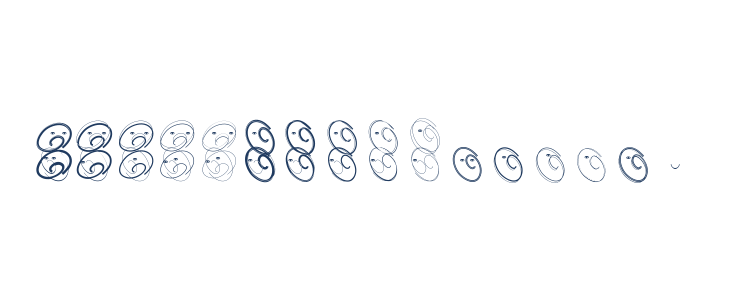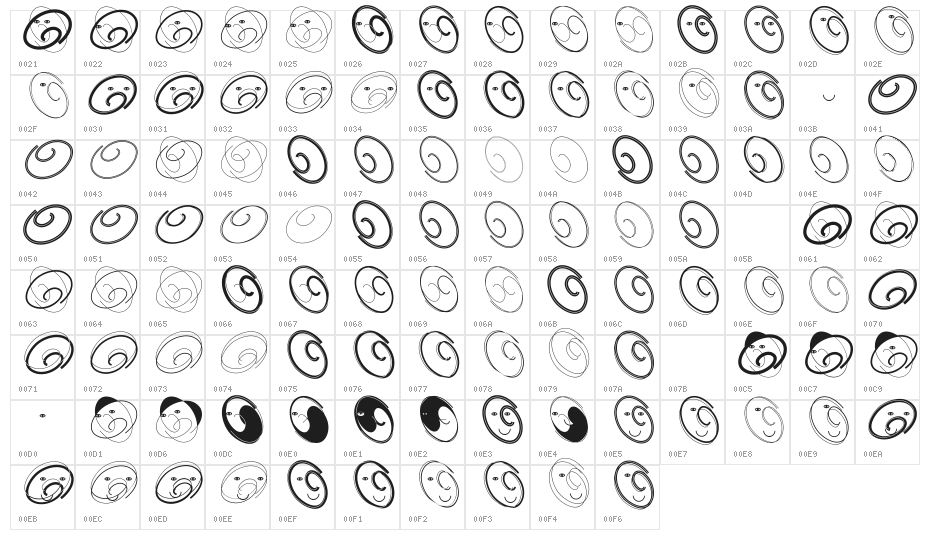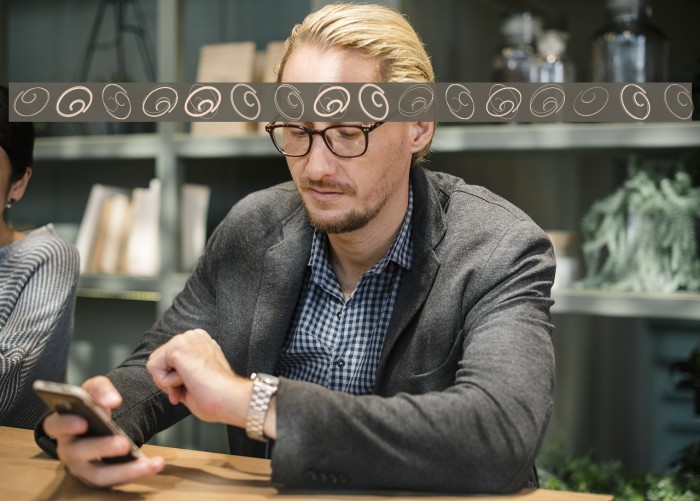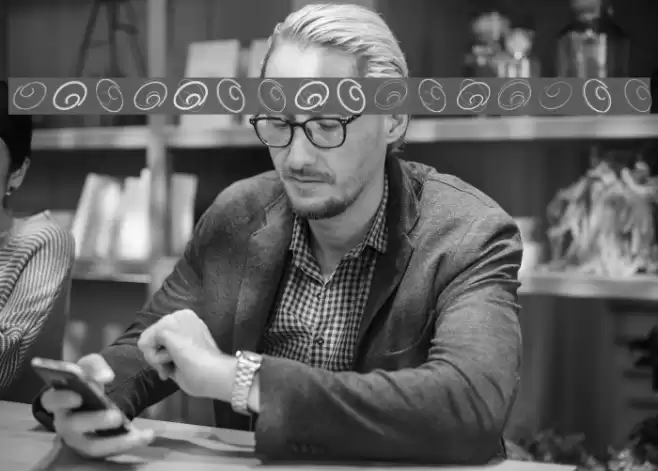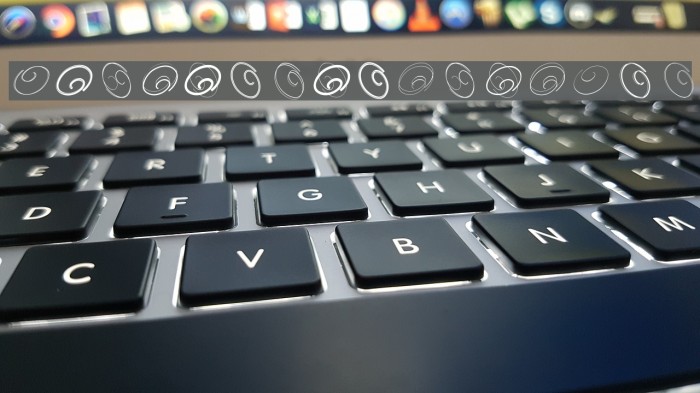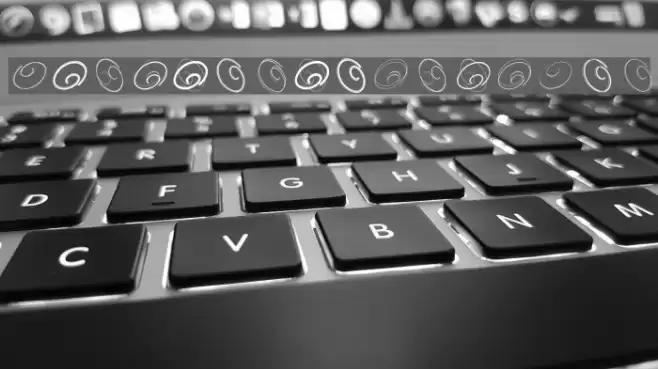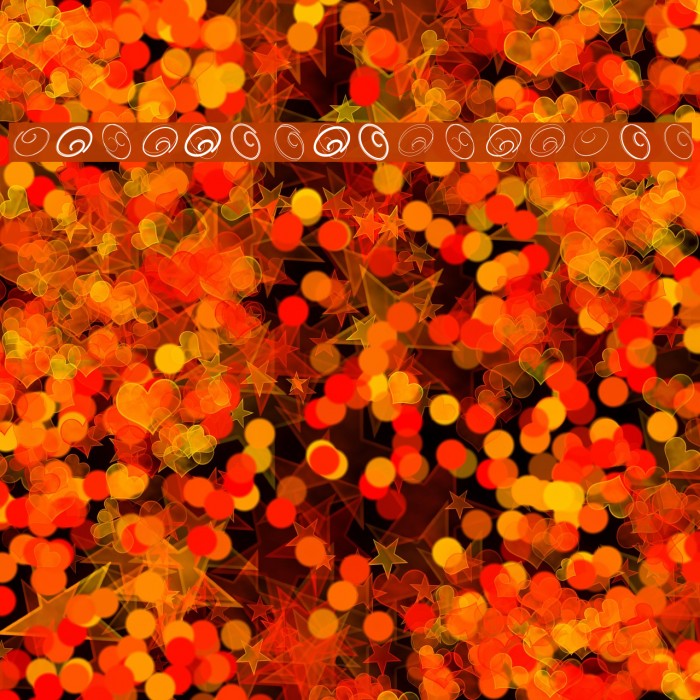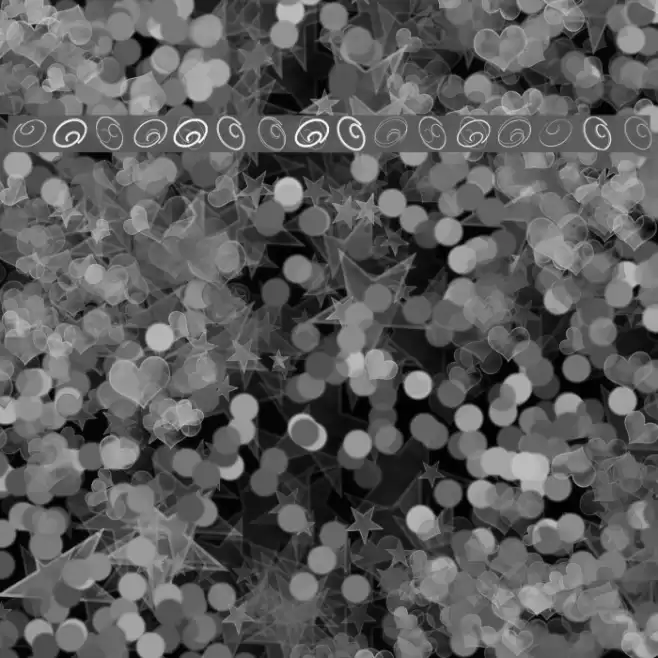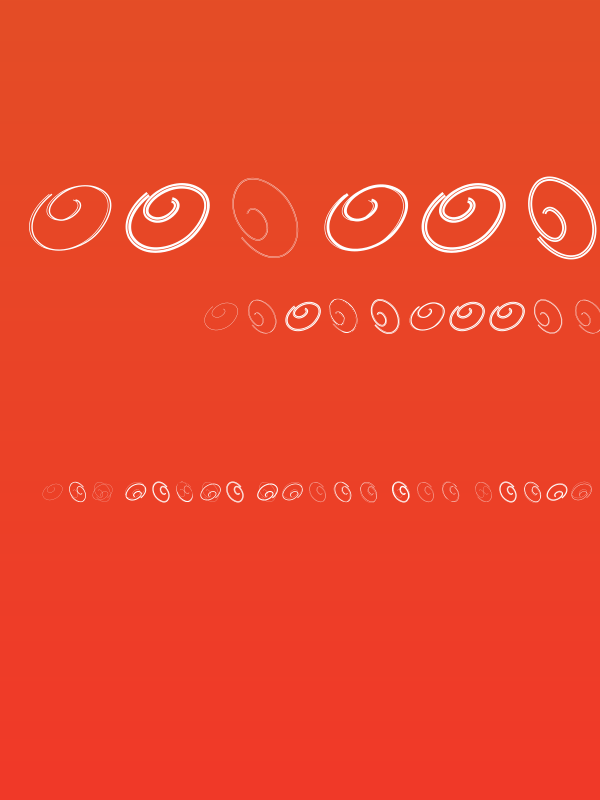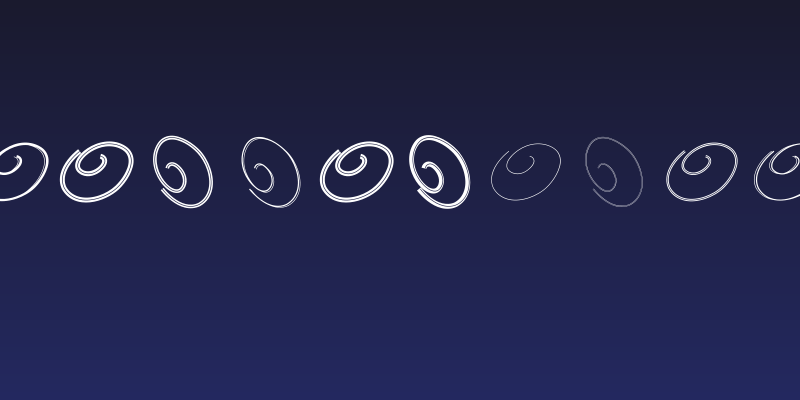
SpiralnauticsTwo Font
SpiralnauticsTwo Description
This is not a valid font. The image appears to contain abstract or decorative spiral designs rather than recognizable alphanumeric characters or symbols typically found in a font set. Each design features a unique combination of curves and lines, creating a visually intriguing pattern. However, these elements do not correspond to any standard typographic characters, making it unsuitable for traditional text representation.
| Overall Style | Abstract |
| Use Case | Decorative art, design elements. |
| Proposed Projects | Artistic projects, decorative elements, or abstract design work. |